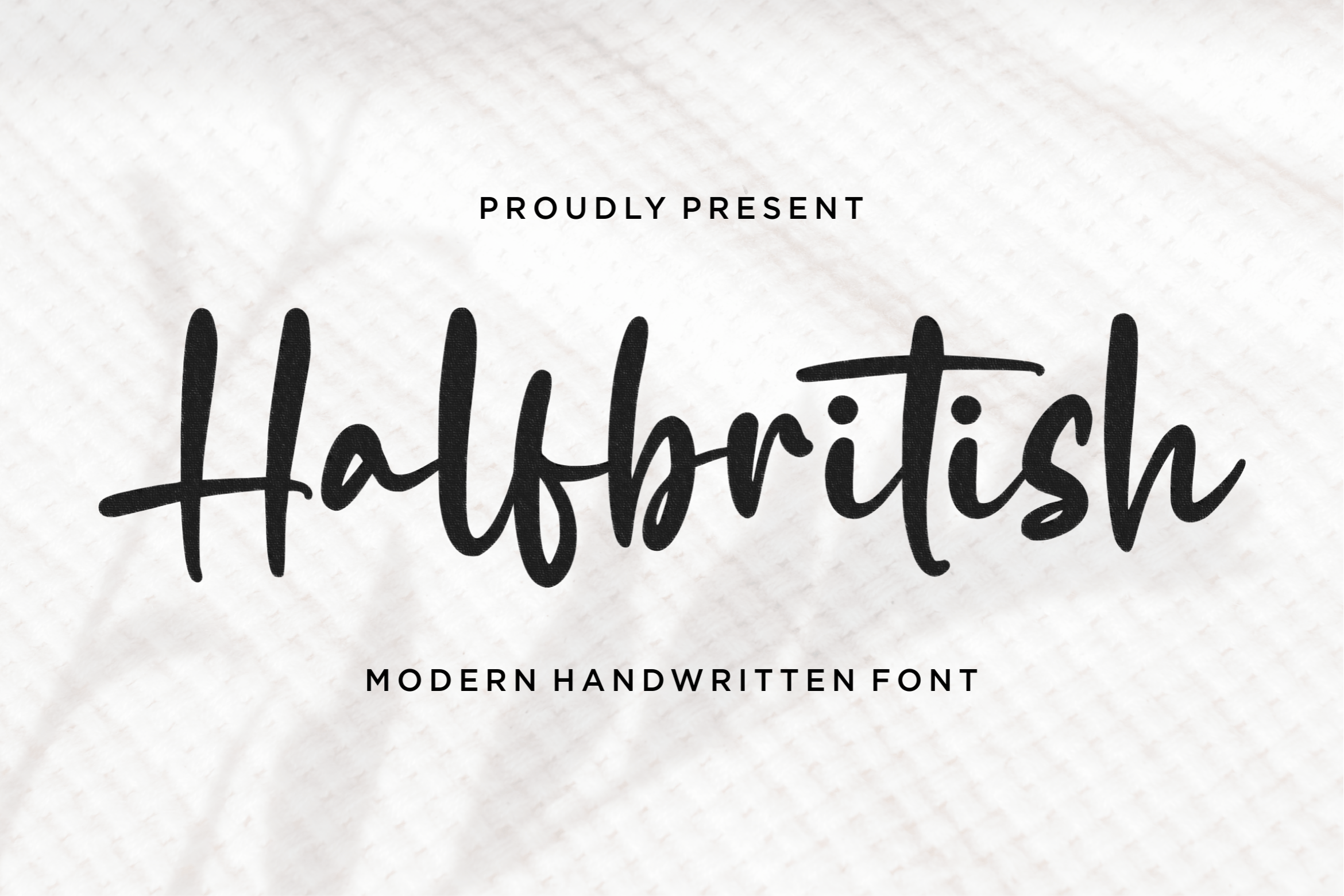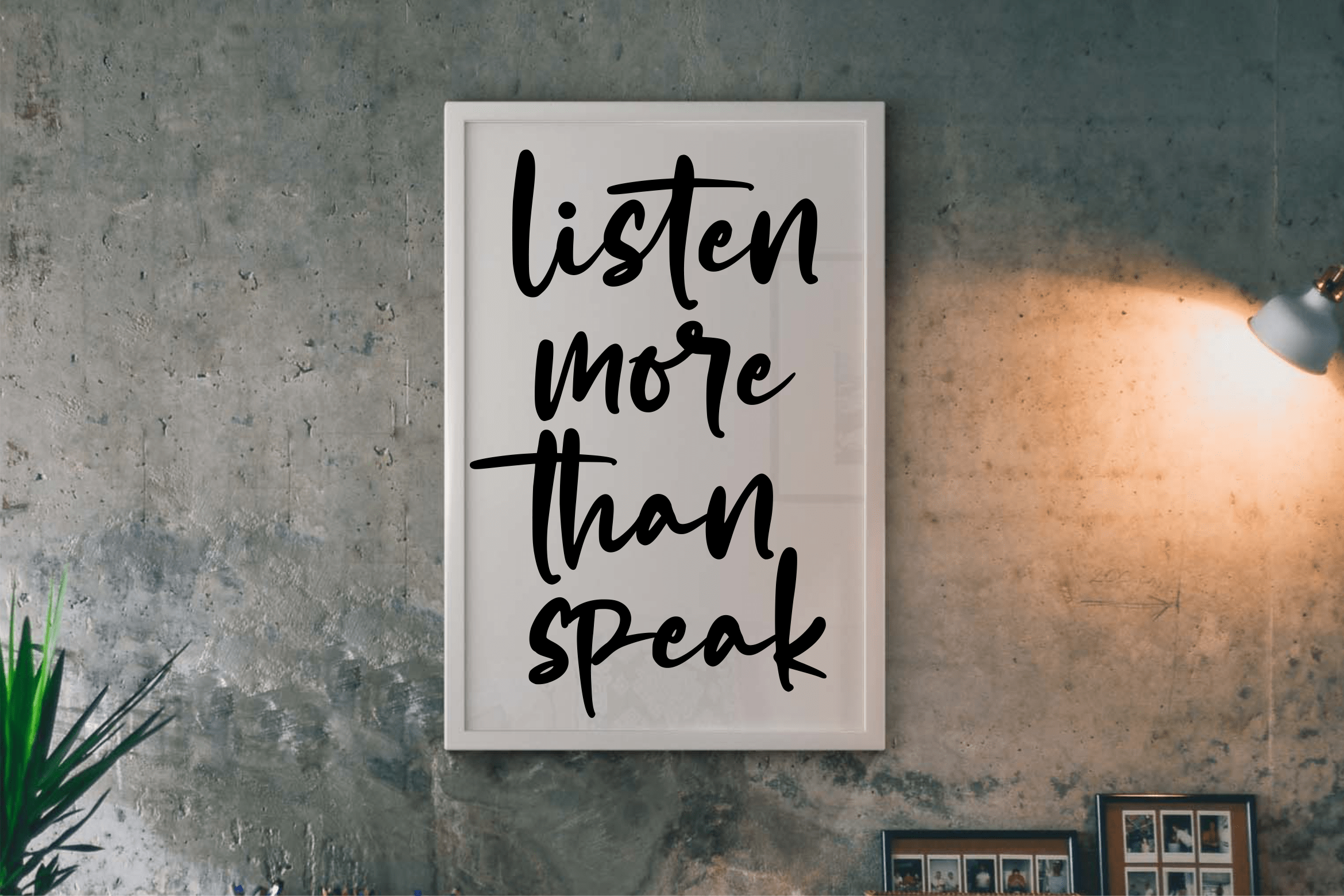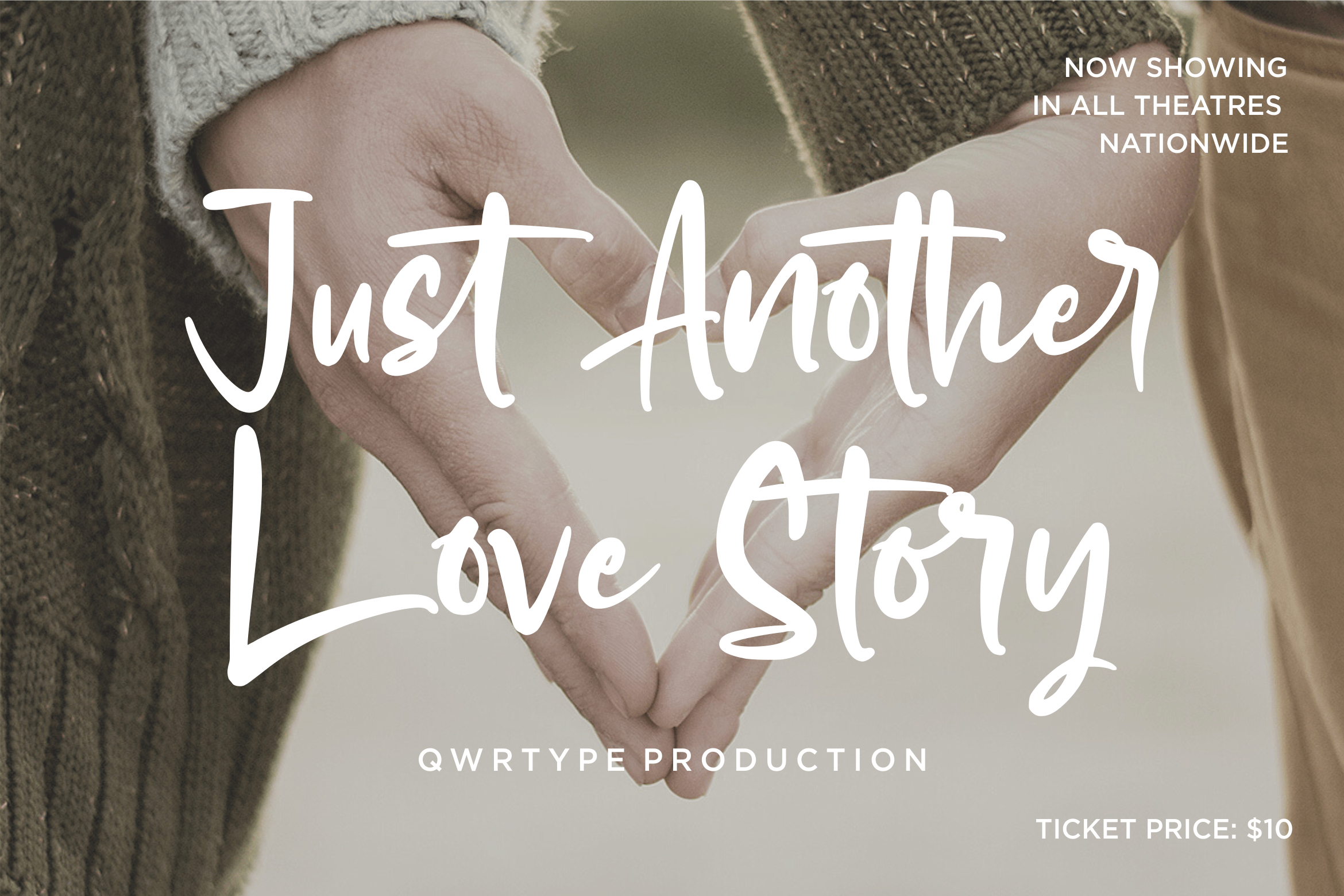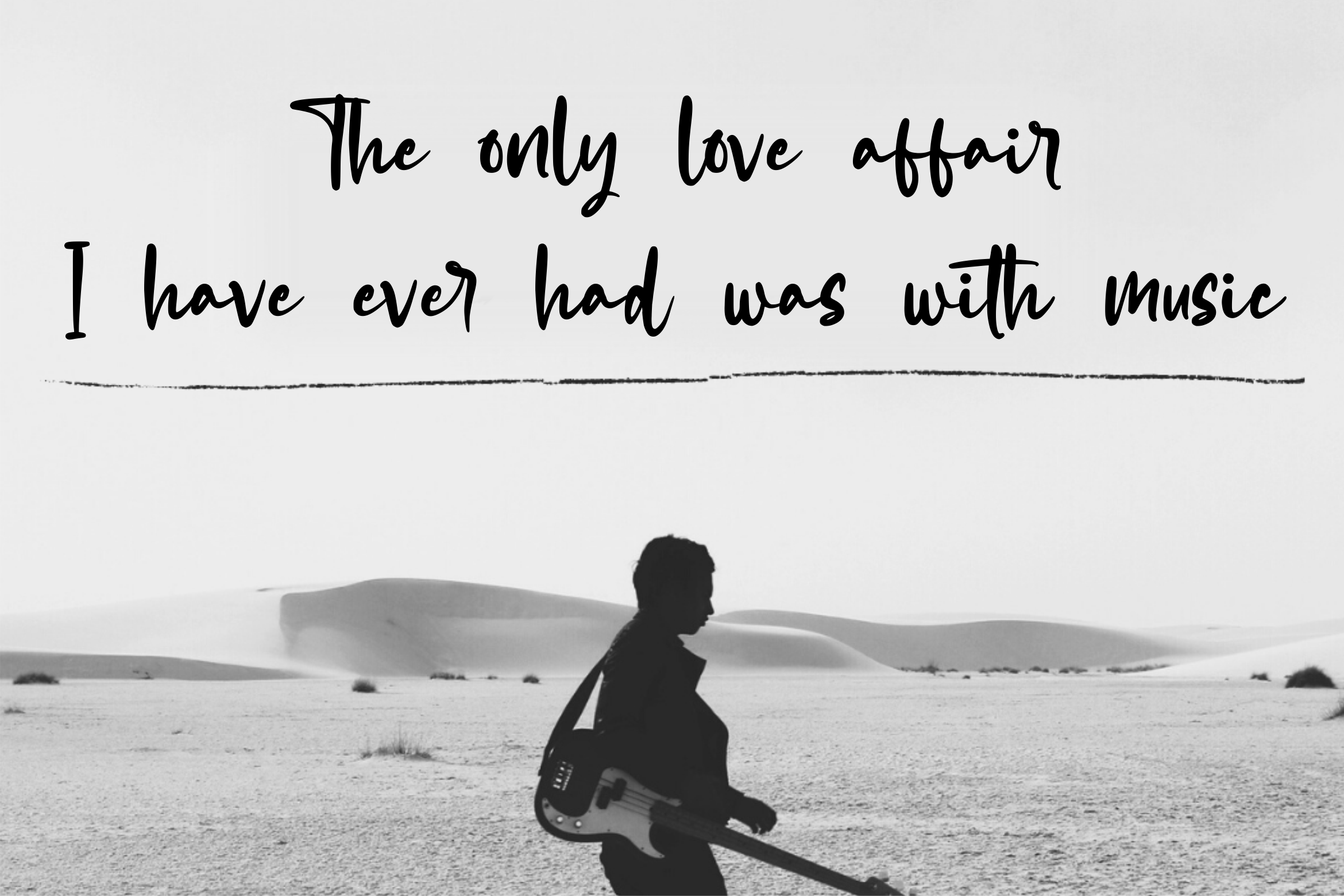
Halfbritish Script Font
This is a lovely and delicate script font that exudes elegance and class. This font was particularly crafted for those who need a beautiful and refreshing look to their designs.